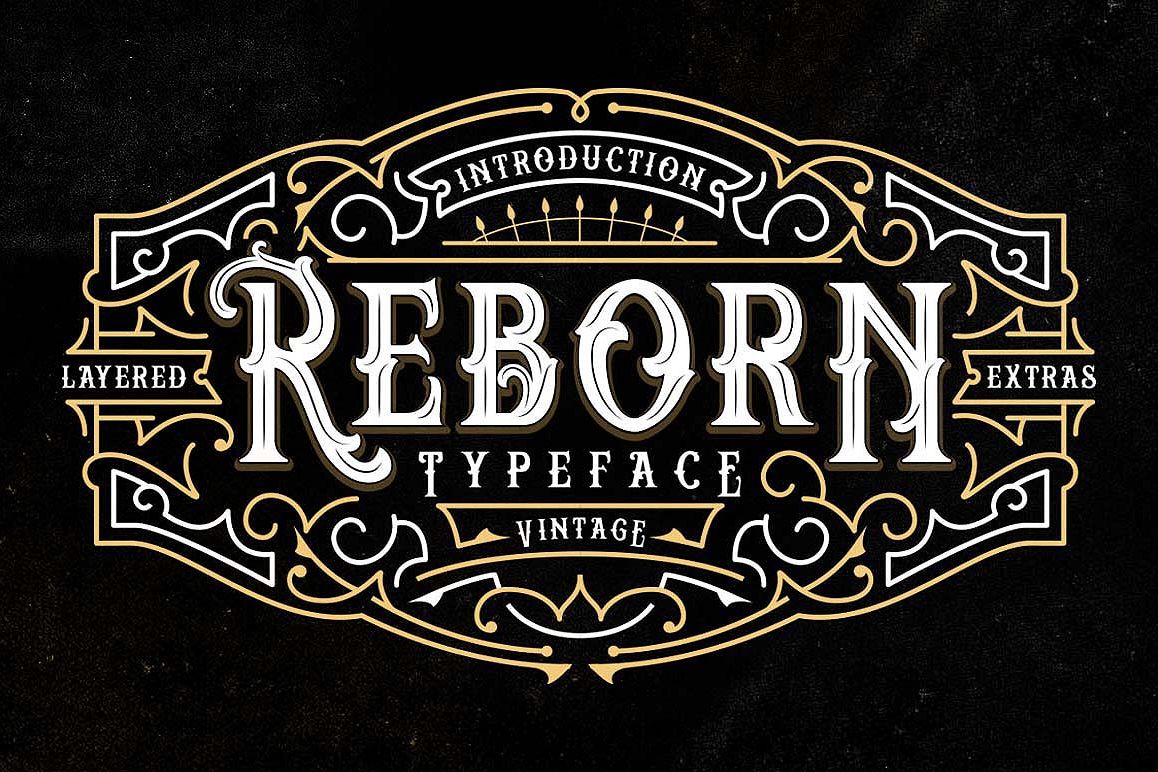
Reborn Layered Typeface + Extras
Reborn Basic
Reborn Inline
Reborn Ornament
Reborn Shadow
Introducing vintage classic display typeface its called Reborn Typeface. Reborn Typeface is a multi-layeredtype family with awesome ornament.Inspired by antique, mix victorian and art deco period with decorative shapes*. and last the beautiful set of ornament pack match pairs of letters to fit in your designs., all the set is EPS file that can opened with Adobe Illustrator or Adobe Photoshop. Those all will make you work easily to create : Posters, Logos, Print, Quotes, Headers, Clothing, Labels, Packaging etc.This is what you'll be get :
• Layered font system
• Character Set A-Z
• Vintage Ornament Outline Decorative Stroke (editable)